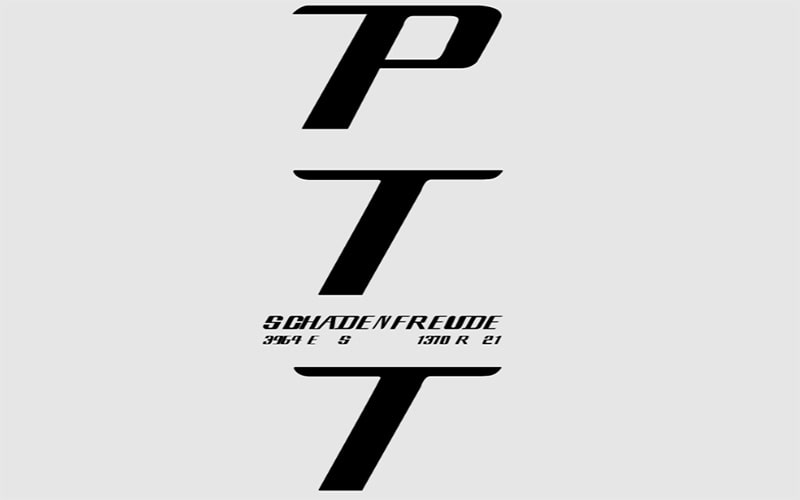
Bleach Logo Font holds a special place in the hearts of fans of the renowned manga and anime series. It is an amazing font and has an outline and modern typefaces.
This versatility ensures that the font can be utilized for numerous design purposes, including branding and promotional items. It is also perfect for logos, quotes, clothing, tote bags, business cards, and websites.
Its uniqueness and recognizability make it popular among fans and designers seeking to evoke the spirit of Bleach in their projects.
The font encompasses a comprehensive character set, including uppercase and lowercase letters, numerals, punctuation marks, and special characters.
Bleach Logo Font
| Font Name: | Bleach Logo Font Font |
| Style: | Modern, Outline Typeface |
| Font Designer: | unknown |
It also supports multiple international languages, such as Afrikaans, Danish, Dutch, English, Finnish, French, German, Italian, Latvian, Polish, Romanian, Spanish, Swahili, Swedish, and many more.